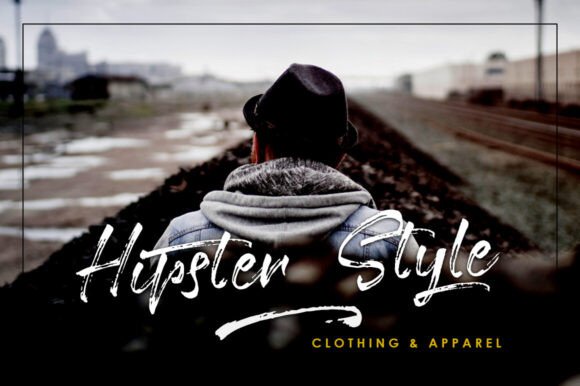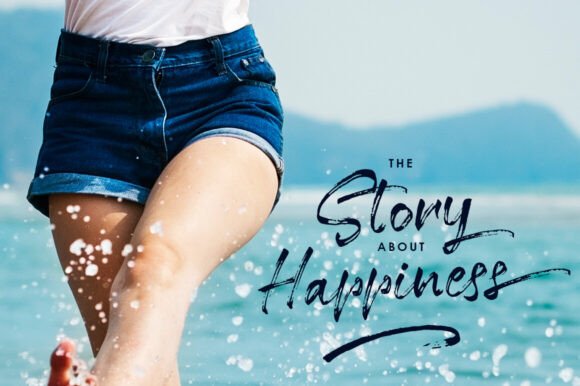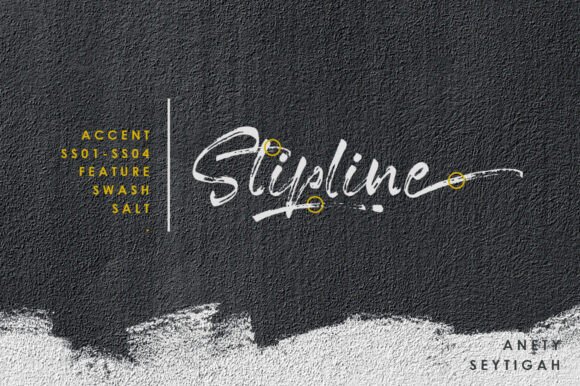
Introduction to Anety Seytigah Font
β€œAnety Seytigah” is a modern brush font with a unique textured style and natural, handcrafted underlines.
It comes with alternates and swash that add versatility and charm to your designs Perfect for a wide range of creative projects such as titles, branding, logos, invitations, t-shirts, packaging, posters, greeting cards, and more.
Key Features of Anety Seytigah Font